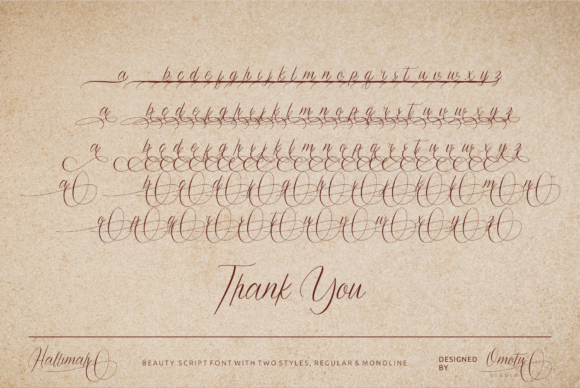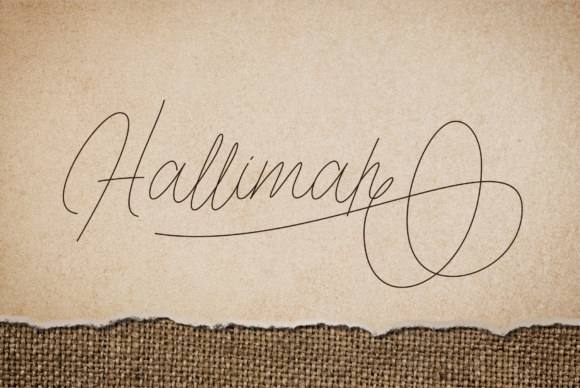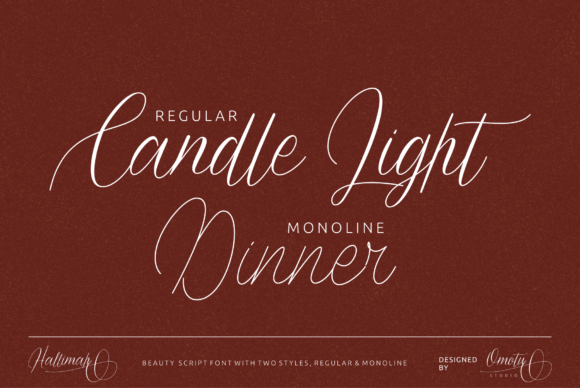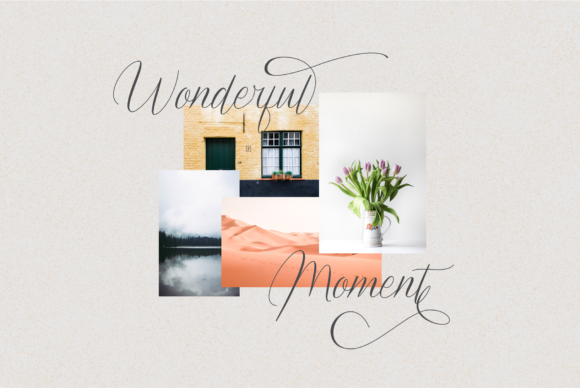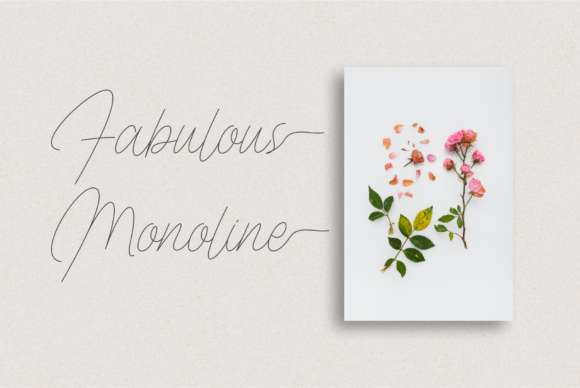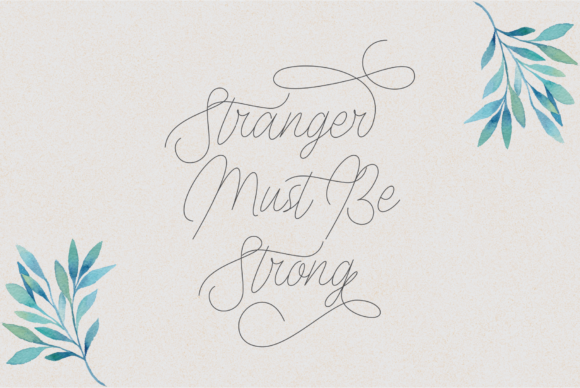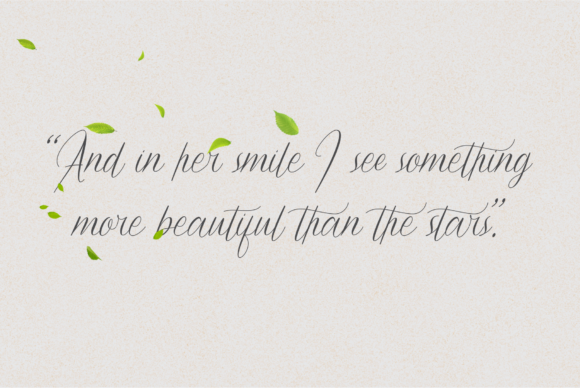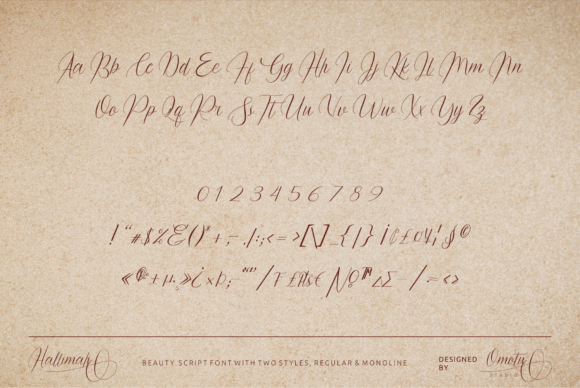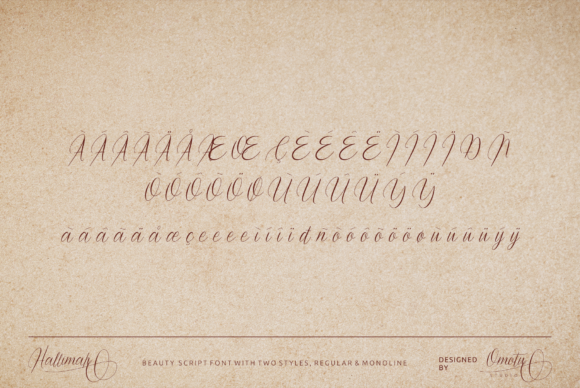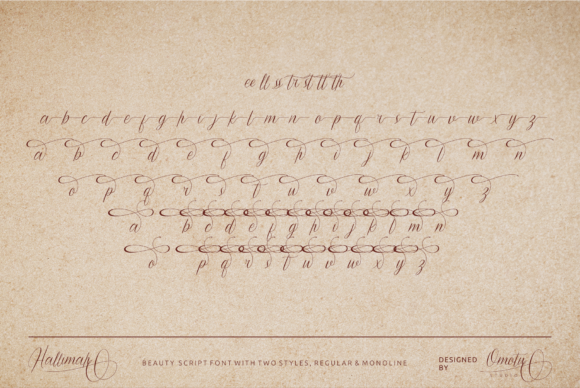
HomeScript FontsHallimah Font Script Fonts Hallimah Font FacebookXPinterestWhatsApp Hallimah Font Poster 2 Hallimah Font Poster 3 Hallimah Font Poster 4 Hallimah Font Poster 5 Hallimah Font Poster 6 Hallimah Font Poster 7 Hallimah Font Poster 8 Hallimah Font Poster 9 Hallimah Font Poster 10 Hallimah Font Poster 11 About Hallimah Font Hallimah is a beautiful font duo with a unique style. Get motivated by its flowing curves! DOWNLOAD ON CREATIVE FABRICAThis font is sold and delivered by Creative Fabrica. Font Canyon may earn a commission if you buy through this link. People also explored Believe Something Font MF Love Dings 2 Font Gatta Dimuntaffa Font Xmas Coming Font Handmade Compact Font Watermelon Font Merry Christmas Font Arkarna Font Duckies Font 405 0 TagsHallimah Font Previous articleGaspol Remblong FontNext articleOdishary Font LEAVE A REPLY Cancel reply Comment: Please enter your comment! Name:* Please enter your name here Email:* You have entered an incorrect email address! Please enter your email address here Website: Save my name, email, and website in this browser for the next time I comment. Personal Use Free Concre Personal Use Free Read more about this font Splatter Splash Personal Use Free Read more about this font Glowing Personal Use Free Read more about this font Summer Pisces Personal Use Free Read more about this font BLOG Free Fonts Risk: Why Free Fonts Can Be Dangerous for Designers Free Fonts Risk: Why Free Fonts Can Be Dangerous for Designers Using free fonts is a common practice in web and graphic design. However, the... Top 7 Google Fonts Alternatives for Faster and Privacy-Friendly Web Design (2025) Free vs Paid Fonts: Why Investing in Premium Fonts Is Worth It Best Fonts for T-Shirt Design – Top 2025 Picks